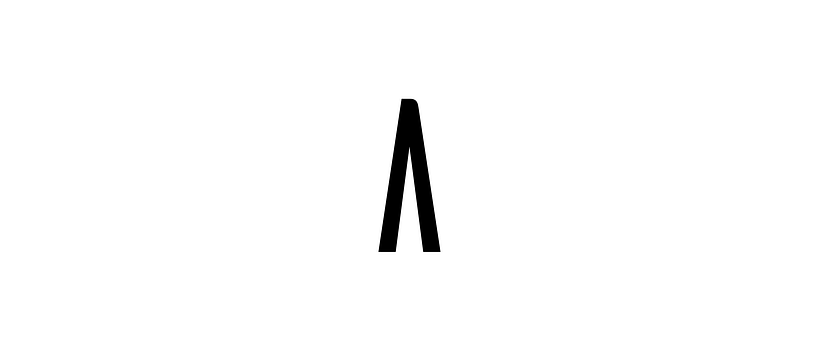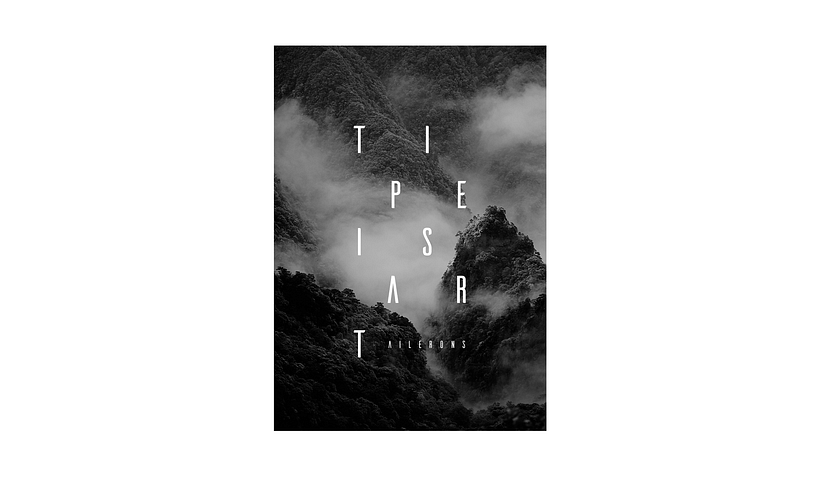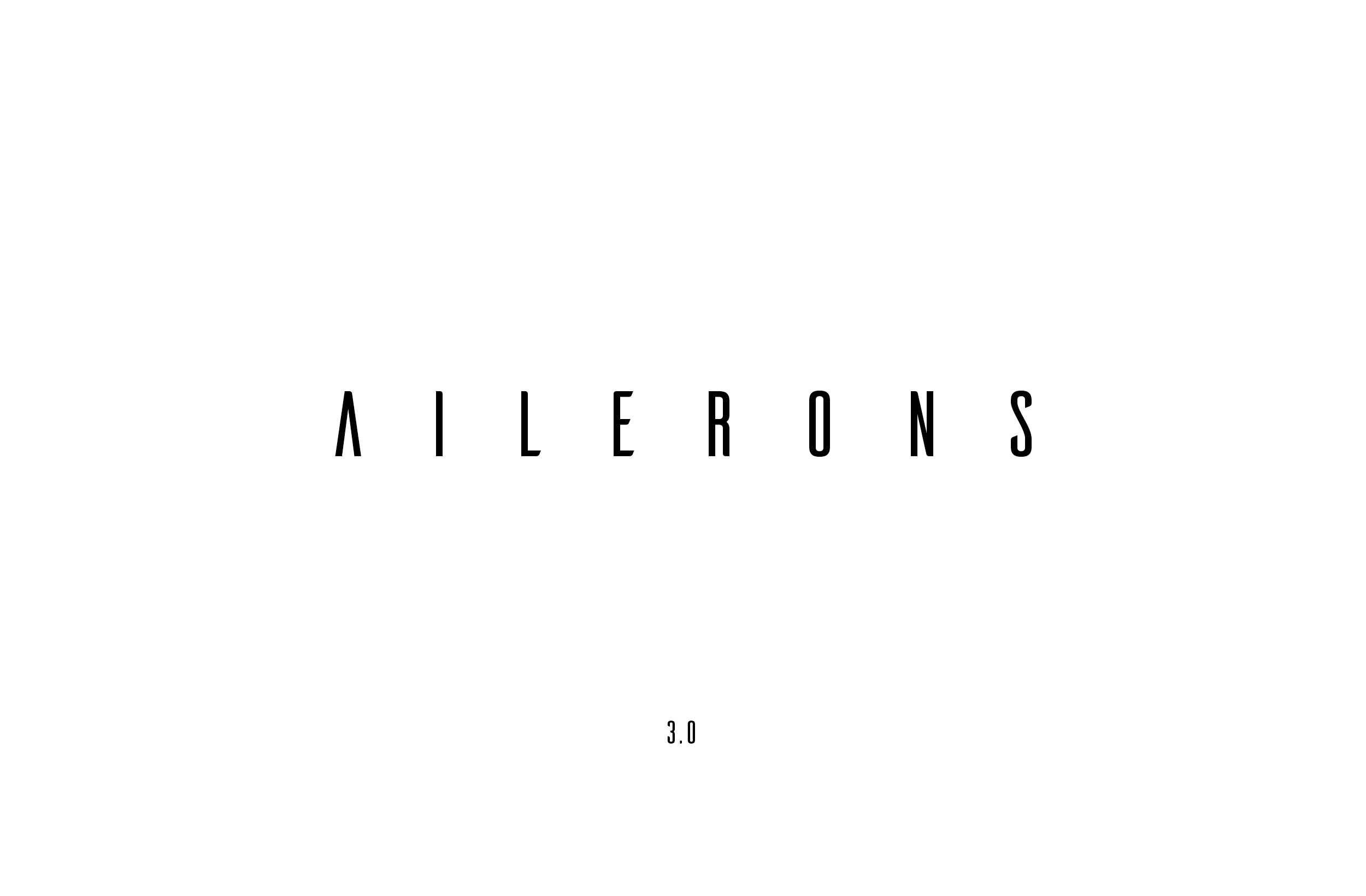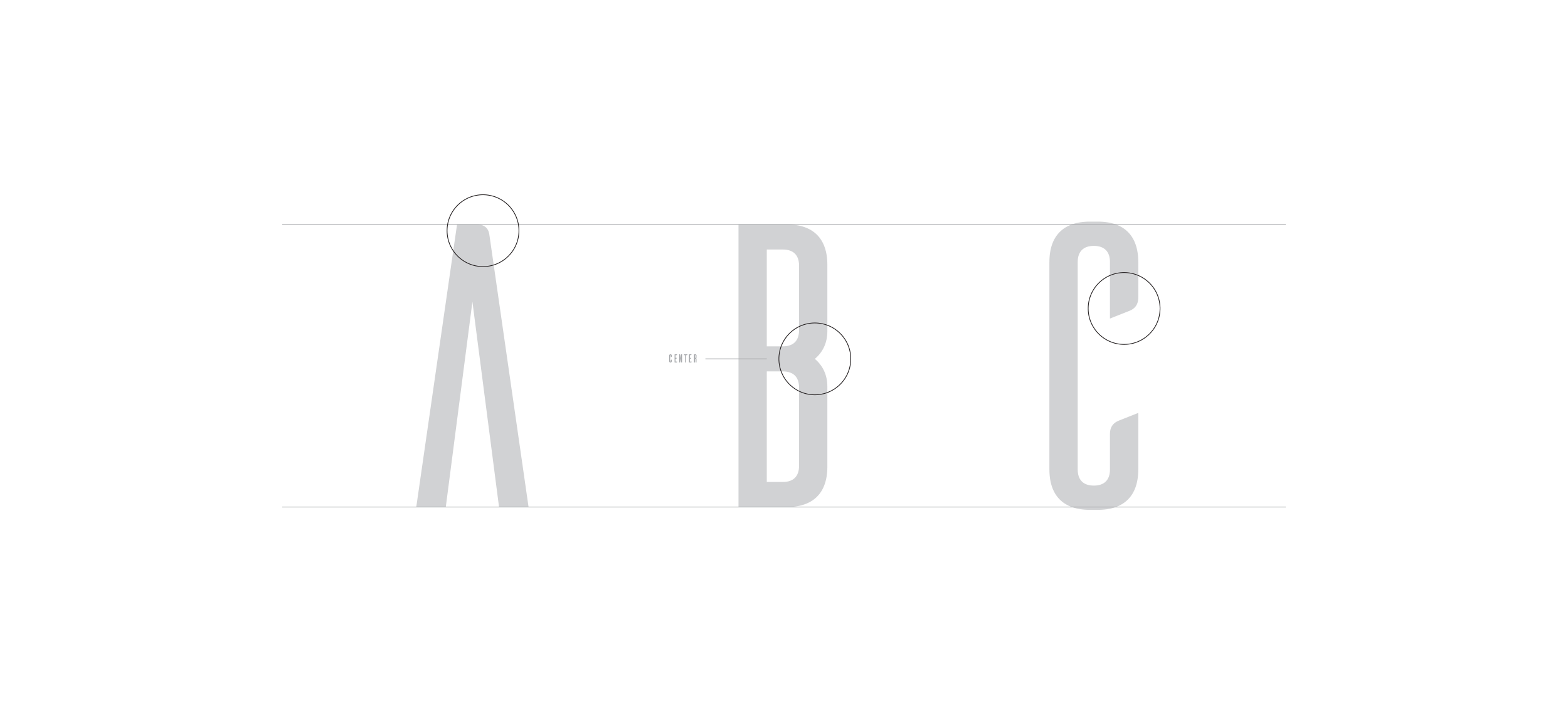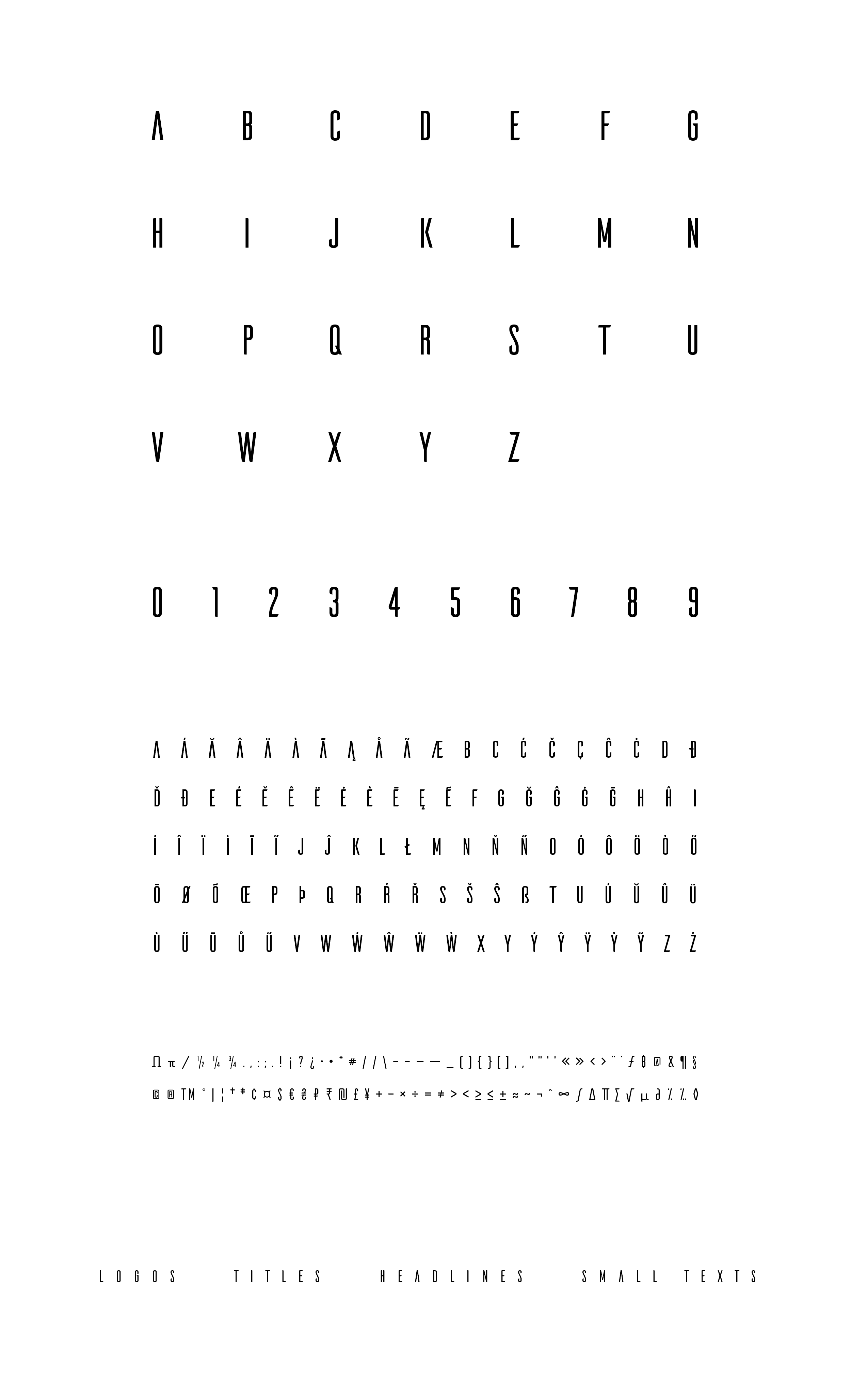
ailerons typeface
von Adilson Gonzales @gonzales
The story of Ailerons begins in 2009, when I was developing my graduation project for college. The typography was part of a concept visual identity, inspired by aircraft models from the 40s, which made intense use of condensed letters.
The idea was to use the curves that refer to aircraft ailerons to build the letter's identity. The name of the font came up from this concept. The unusual space between letters, present since the first version, indicates its best use.